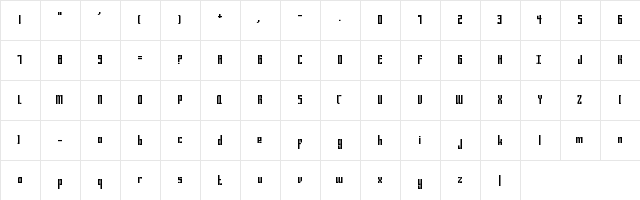
Bravado Block Regular
| Designer | josephghayes |
Design Context for Bravado Block Typeface
Bravado Block is a composed and adaptable typeface that performs quietly and consistently across a wide range of design contexts.